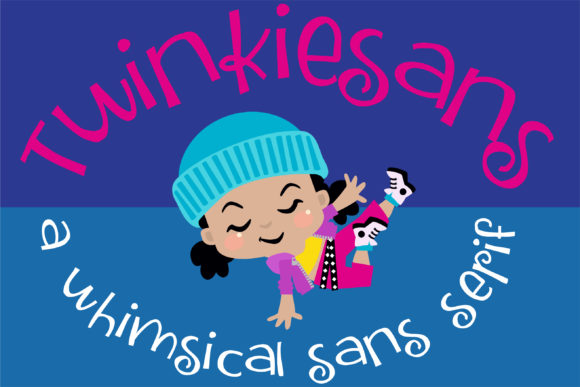
Journey through the world of whimsical typography with Twinkiesans Font, a sans serif font that dances with a touch of elegance and a dash of playfulness. Created by Illustration Ink, this font carries a charm that transforms your words into an enchanting tale.
With its round and gentle curves, Twinkiesans Font emanates a sense of warmth and joy. Whether it's a delightful children's story, a captivating blog post, or a quirky social media caption, this font breathes life into your words, making them leap off the page.
Dive into the depths of creativity as you explore the endless possibilities of Twinkiesans Font. Its occasional curls, like a playful wink, add an element of surprise and delight. Experiment with different sizes and colors to craft captivating headlines that grab attention and leave a lasting impression.
Unleash your imagination and let your words dance with Twinkiesans Font. Its sans serif style brings a touch of sophistication, while its whimsical nature adds a touch of whimsy, making it the perfect choice for projects that demand a unique and memorable voice.